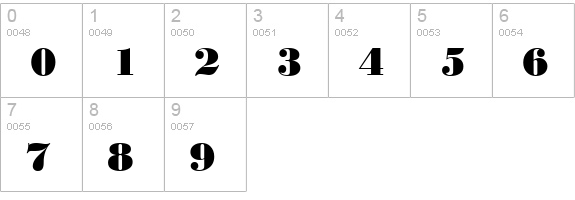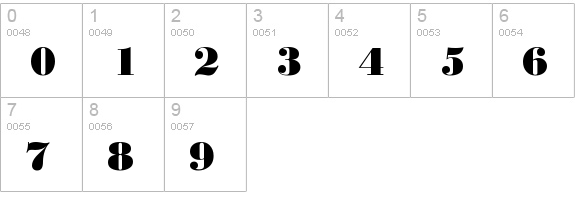
Bodoni-Black-Regular Font Details
Bodoni-Black-Regular is a maximum-weight, dramatic variant in the Bodoni typeface family \xE2\x80\x94 well suited to maximum-impact headlines, posters, and packaging.
Bodoni-Black-Regular font is a timeless and elegant typeface that exudes sophistication and style. Its bold and striking design makes it perfect for creating eye-catching headlines and titles. The thick strokes and sharp serifs give this font a commanding presence on any design project. The Bodoni-Black-Regular font is versatile and can be used in a variety of design applications, from print materials to digital projects. Its classic yet modern look makes it a popular choice among designers and creatives looking to make a statement. Best of all, the Bodoni-Black-Regular font is available for free download at FontsMarket.com. This means you can access this beautiful font without any cost, making it a valuable addition to your typography collection. Don't miss out on the opportunity to enhance your designs with this stunning and impactful font. Download Bodoni-Black-Regular today and elevate your design projects to the next level.